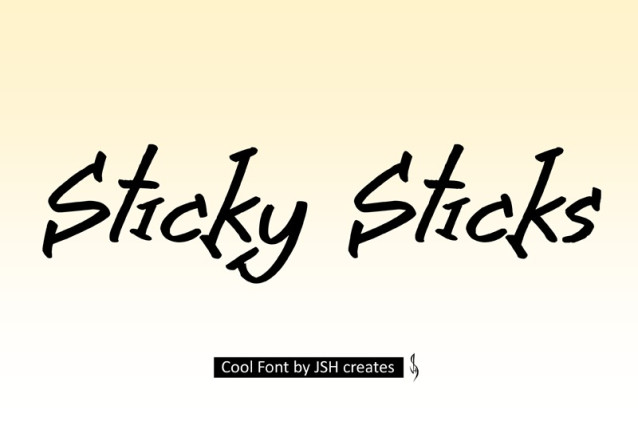
Sticky Sticks Font
Sticky Sticks Font Perfect for advertising and display purposes, including banners, book covers, shirts, posters, logos and much more! Font includes all upper and lowercase letters, numbers, characters and punctuation.